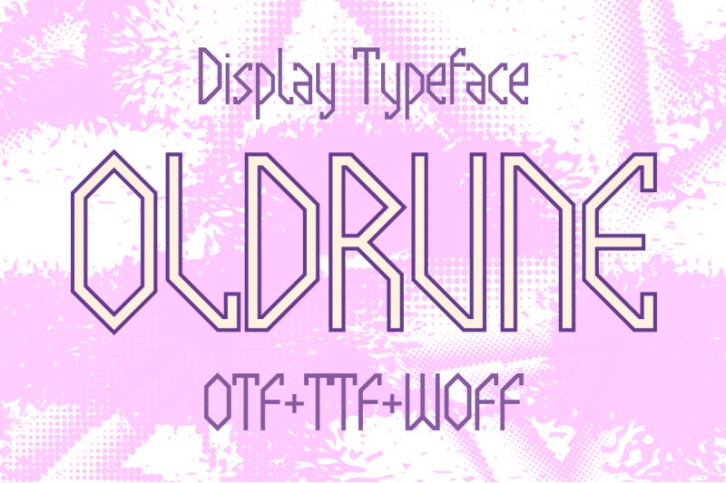
If you are looking for a antique font for labels, covers, posters and other design projects, then this type is probably for you. Oldrune is a multilingual display typeface with uppercase and lowercase letters, numbers and punctuation in style of ancient runes. This style can be used to write inscriptions on the labels or packaging of some craftwork design. In this case you will receive otf, ttf, woff fonts. And as a bonus there is a vector eps file for illustrator.